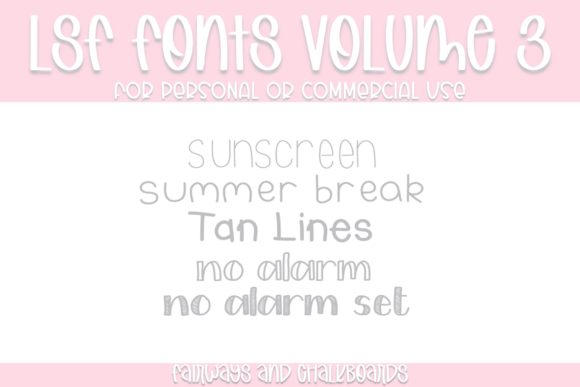
Introducing the LSF Volume 3 Font: Your Gateway to Mesmerizing Designs
Prepare to be captivated by the LSF Volume 3 Font, a remarkable display font family meticulously crafted by Fairways and Chalkboards. This versatile collection boasts five magnificent font styles, offering you boundless creative possibilities for your branding, product packaging, invitations, quotes, T-shirts, labels, posters, and logos. Unleash your imagination and transform your designs into captivating masterpieces with LSF Volume 3.
Crafted with meticulous attention to detail, LSF Volume 3 empowers you to create stunning visuals that exude elegance and charm. Its diverse range of styles, from the playfully bold to the gracefully delicate, provides endless opportunities for you to express your unique design vision. Whether you seek a bold statement or an understated touch of sophistication, LSF Volume 3 has got you covered.
Step into a world of creative possibilities with LSF Volume 3. Say goodbye to mundane fonts and embrace a new era of visual storytelling. Transform your designs into works of art that captivate your audience and leave a lasting impression.
But that's not all! When you choose LSF Volume 3, you're not just investing in a font, you're investing in a limitless source of inspiration. Let your imagination run wild as you explore the endless possibilities that this font family has to offer.